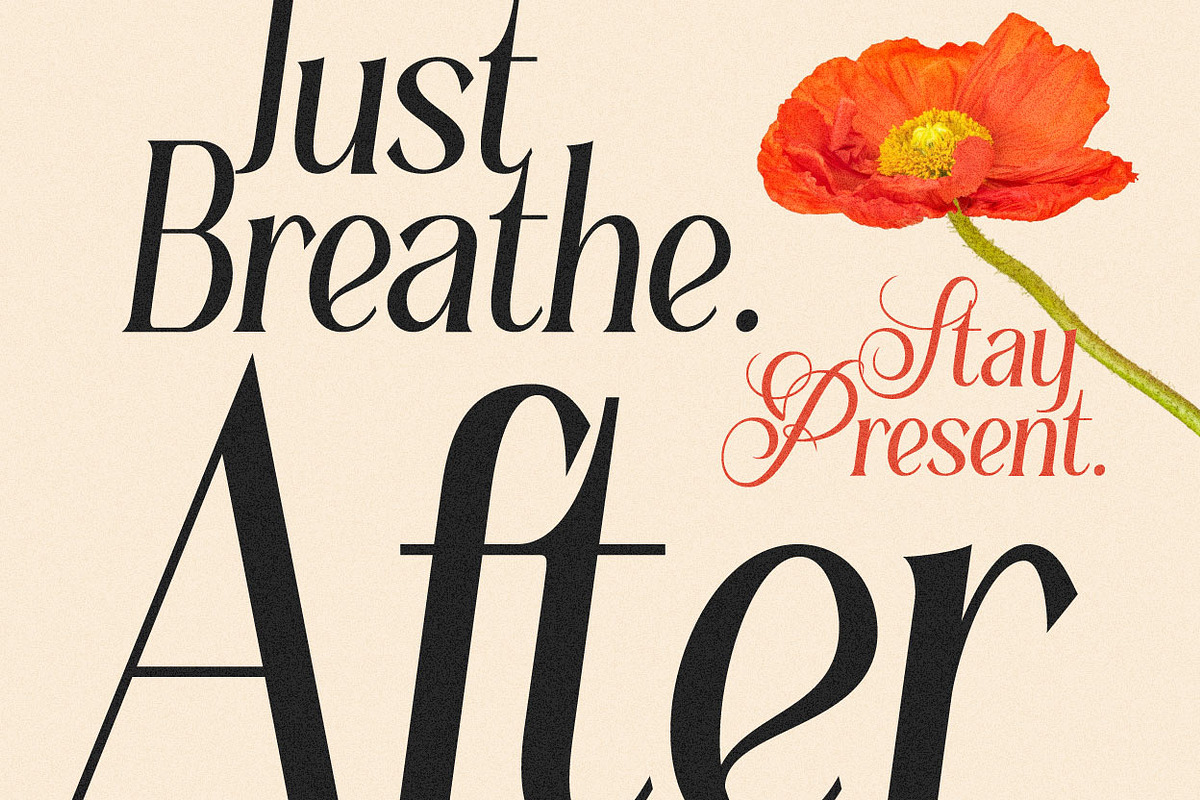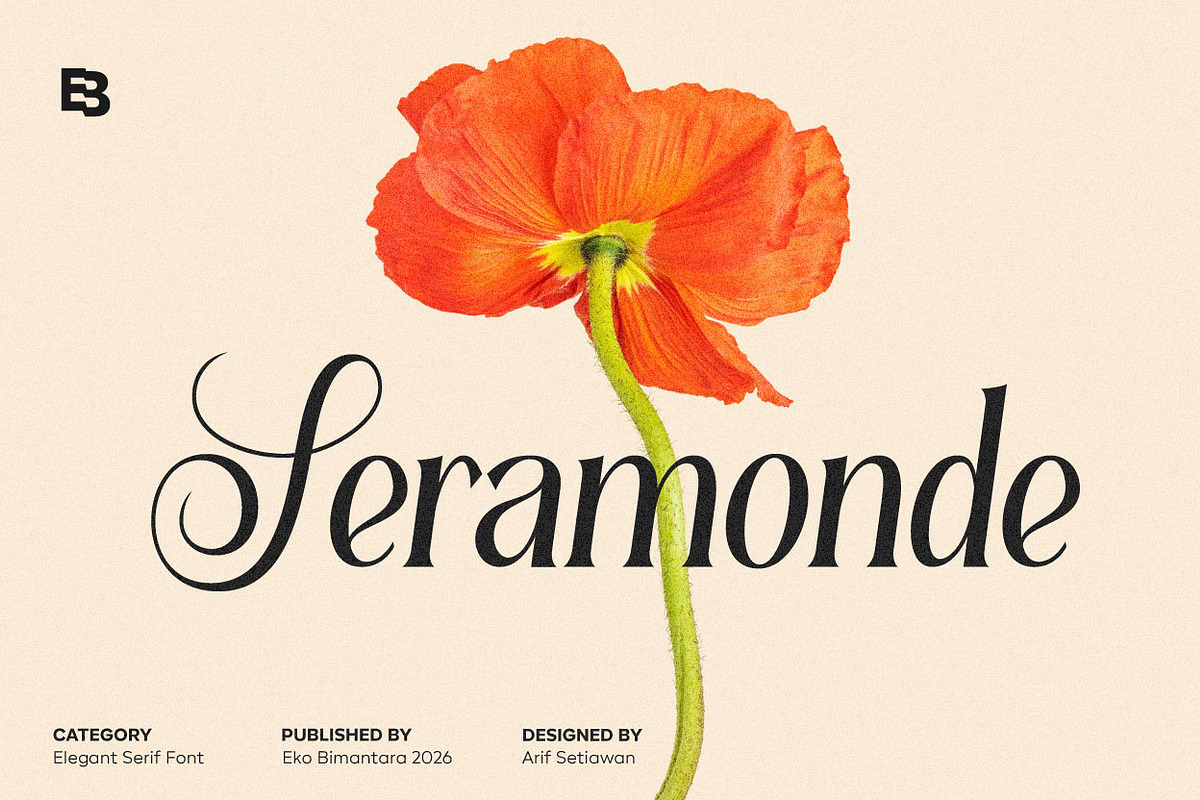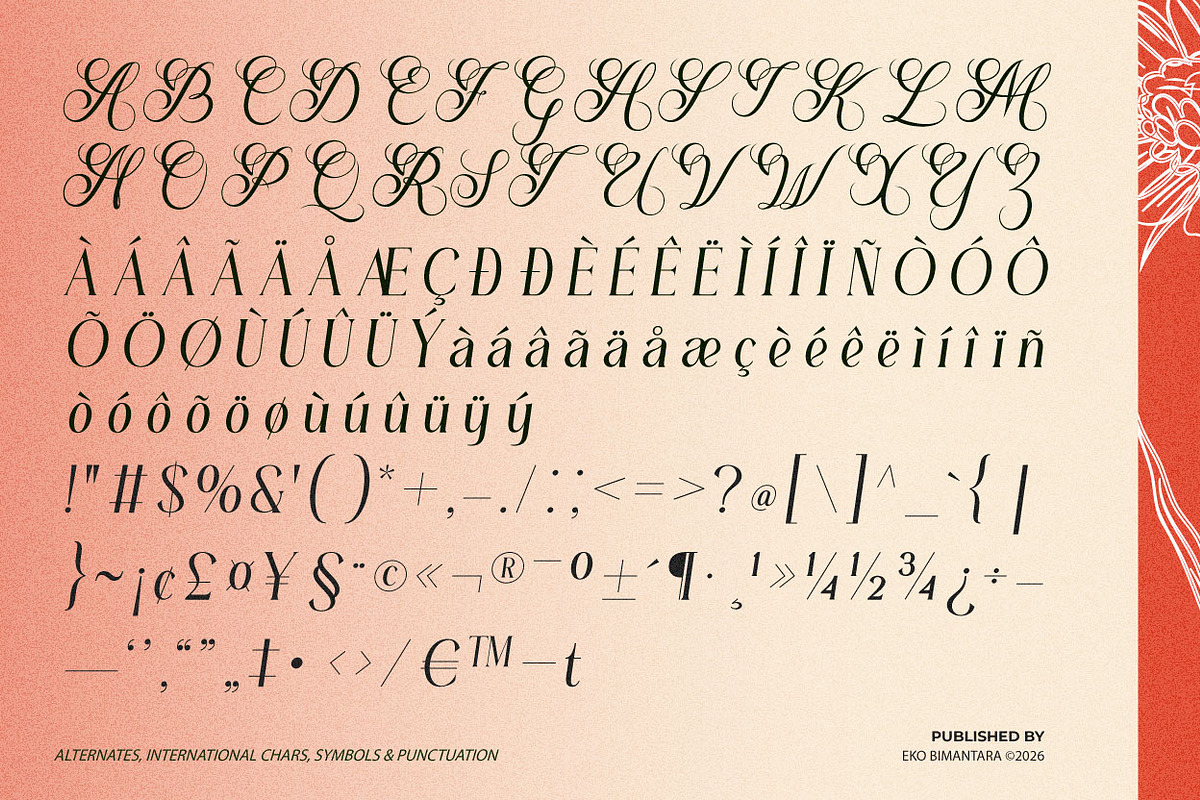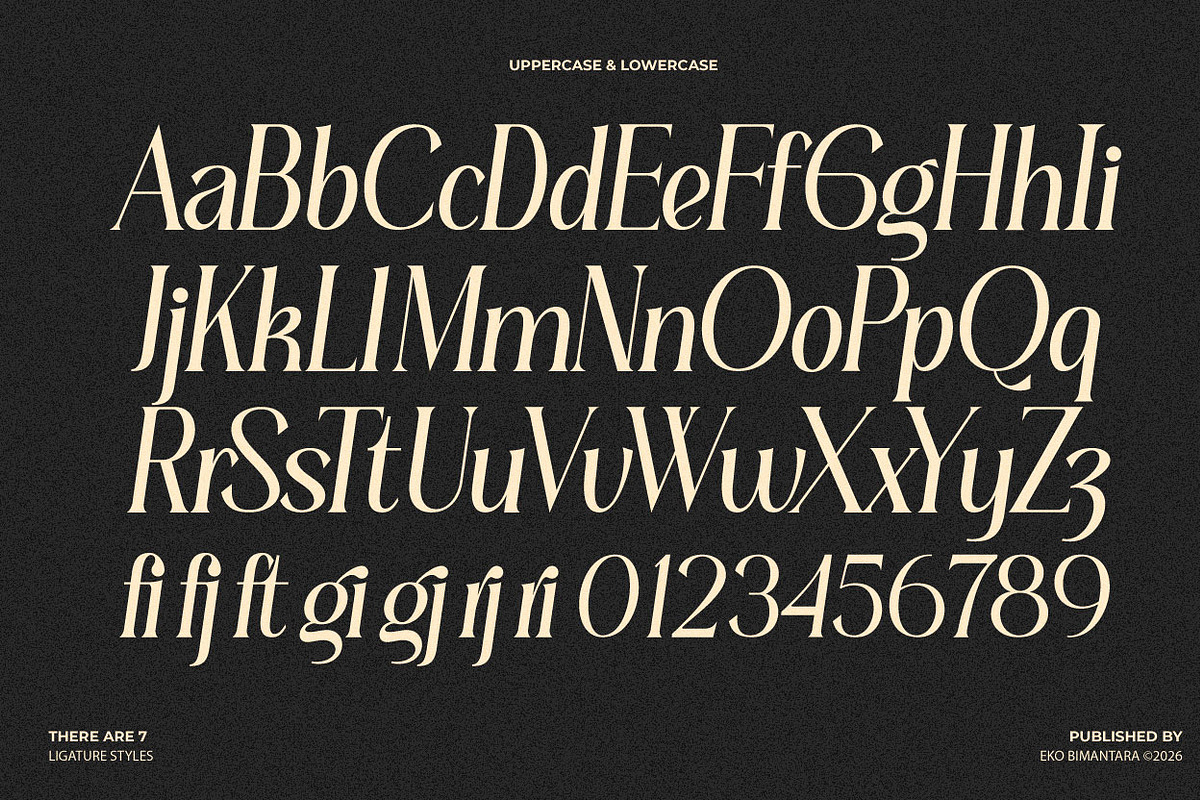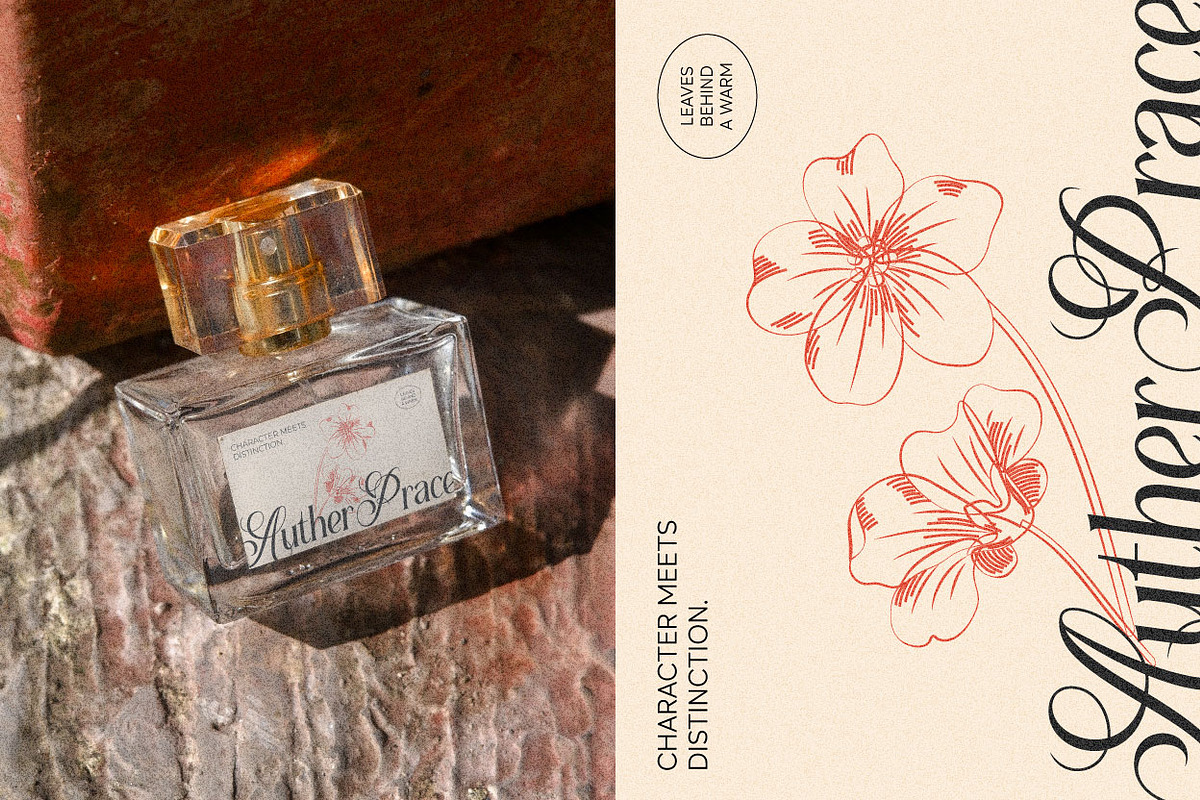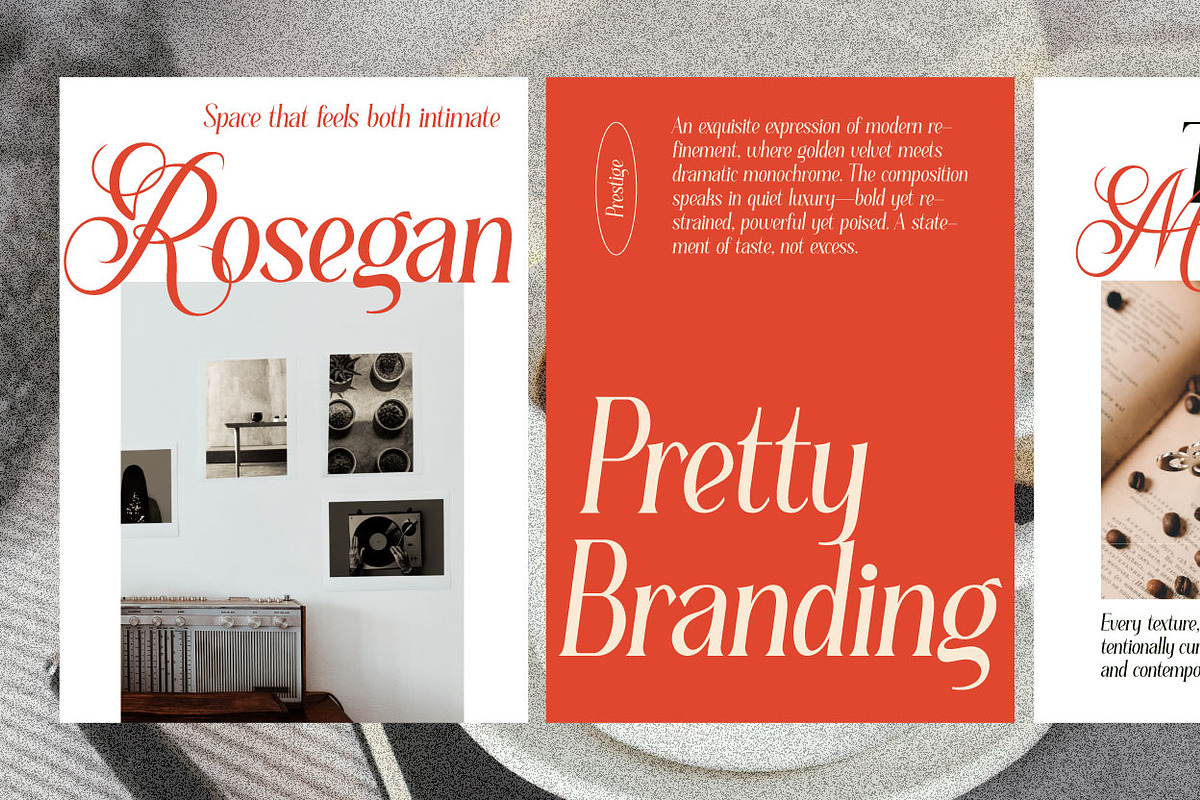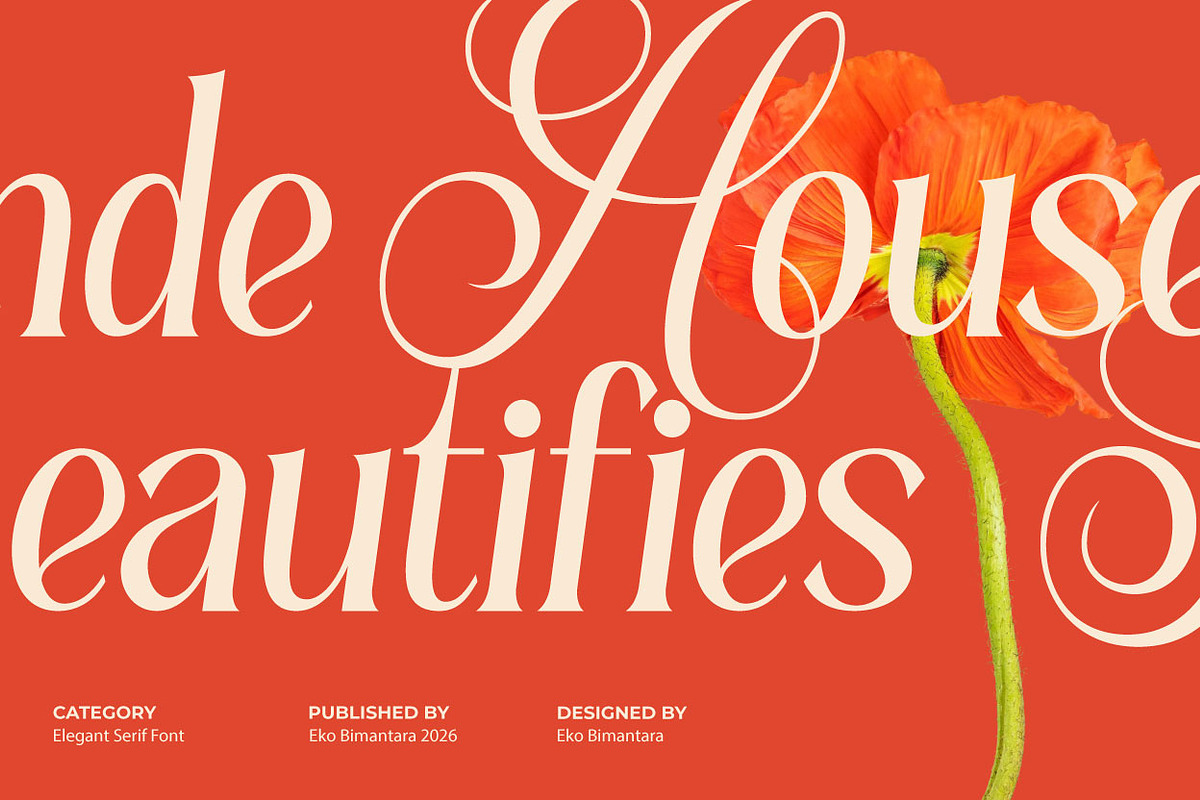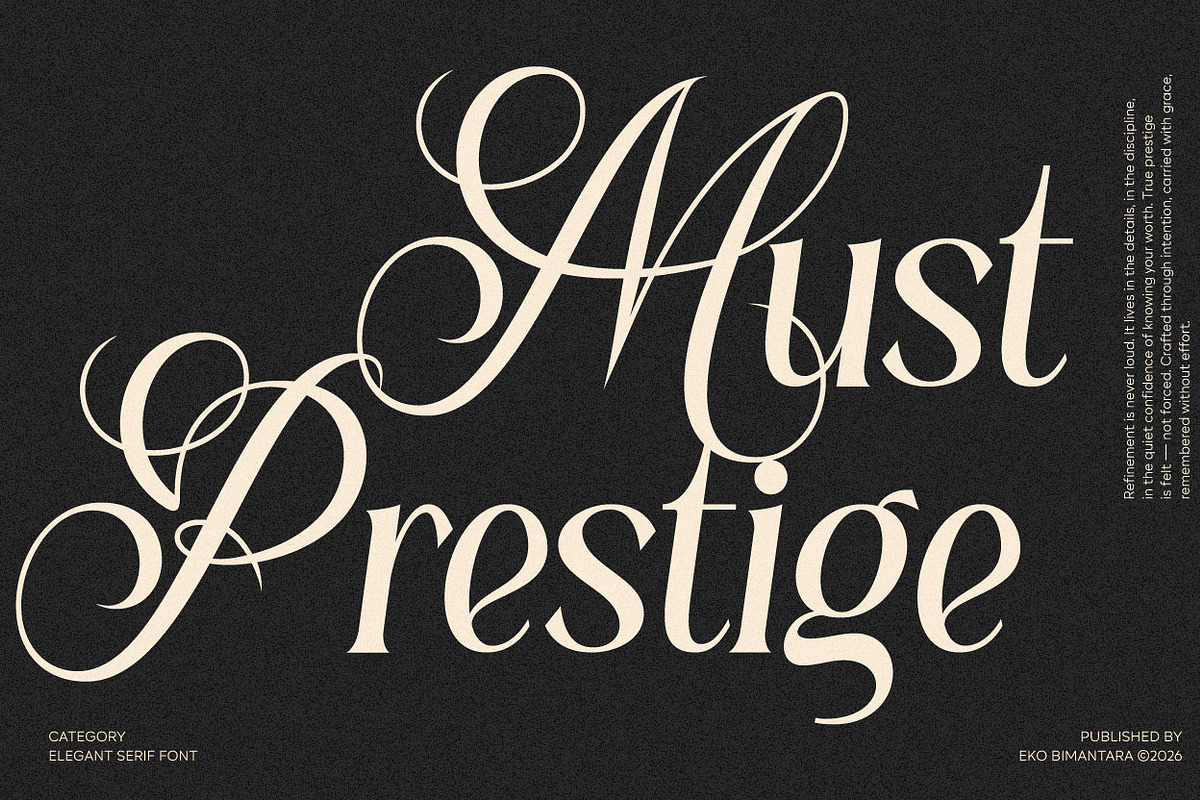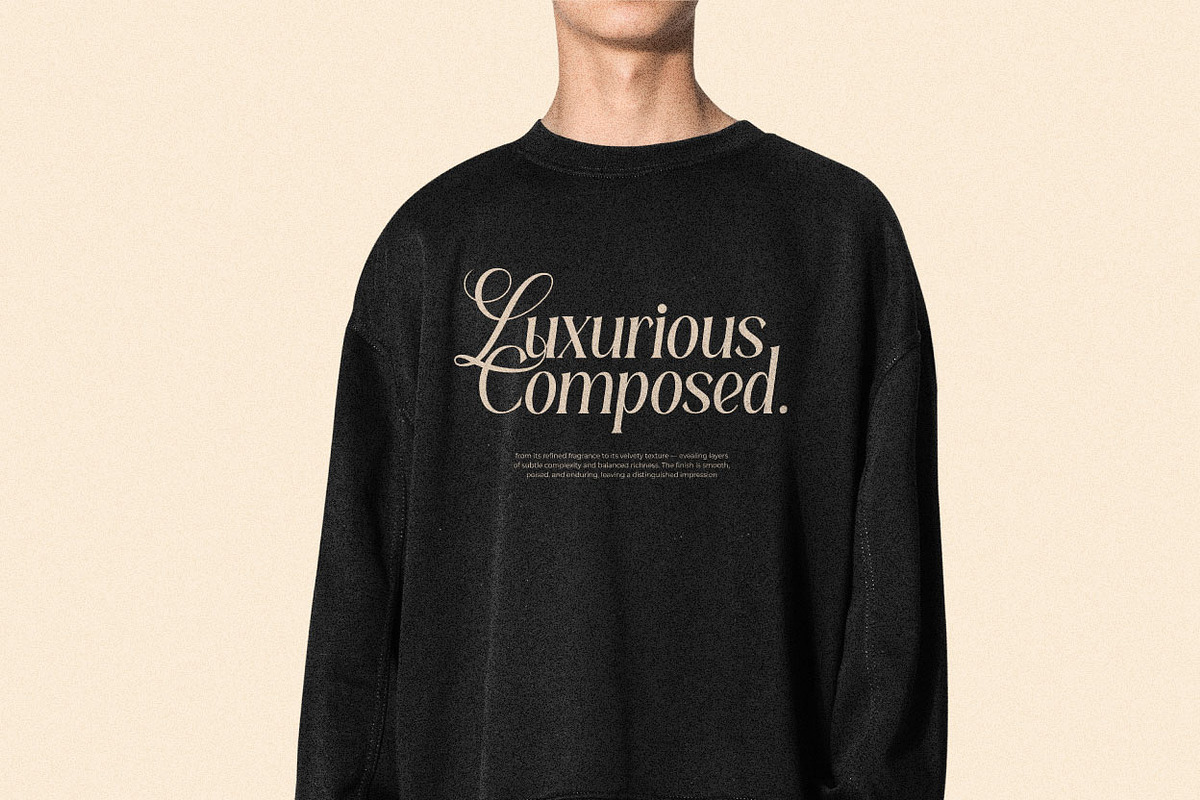
Seramonde; Display Serif Font
Seramonde is a sophisticated elegant serif typeface that blends classical refinement with expressive modern detailing. Defined by its high-contrast strokes, graceful curves, and distinctive calligraphic swashes—most notably in its striking initial forms—it evokes a sense of timeless luxury and artistic flair. The sharp serifs and fluid transitions create a harmonious balance between structure and ornament, making it particularly suitable for premium branding, editorial headlines, and high-end packaging. Seramonde’s personality shines in display settings, where its decorative elegance and refined proportions elevate visual compositions with a touch of romance and exclusivity.